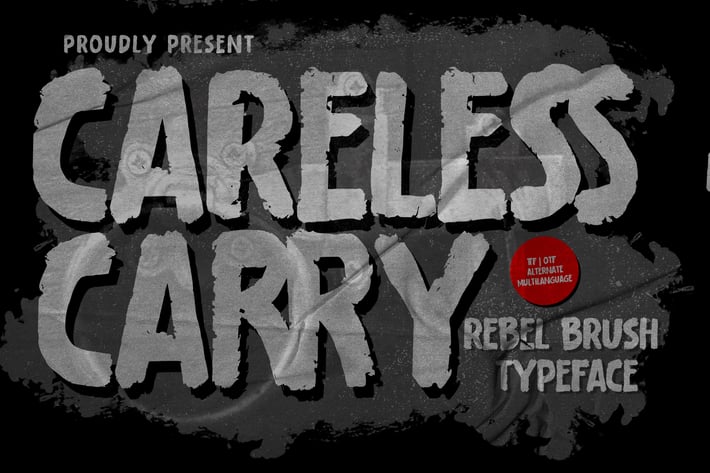
Careless Carry - Rough Brush Typeface
Gassstype
Introducing of our new product Careless Carry is a Rough Brush Typeface Font with ligature and Multilanguage support.
This is a Rough Brush Typeface that is written casually and quickly.
this font are made with brushes on Procreate. Then crafted carefully drawn into vector format.
That is why Careless Carry has Rough and strong characteristic more natural look to your text with a more modern look to your text.
Careless Carry is perfect for homeware designs,branding projects, Logo design, Quotes product packaging,and cartoon.